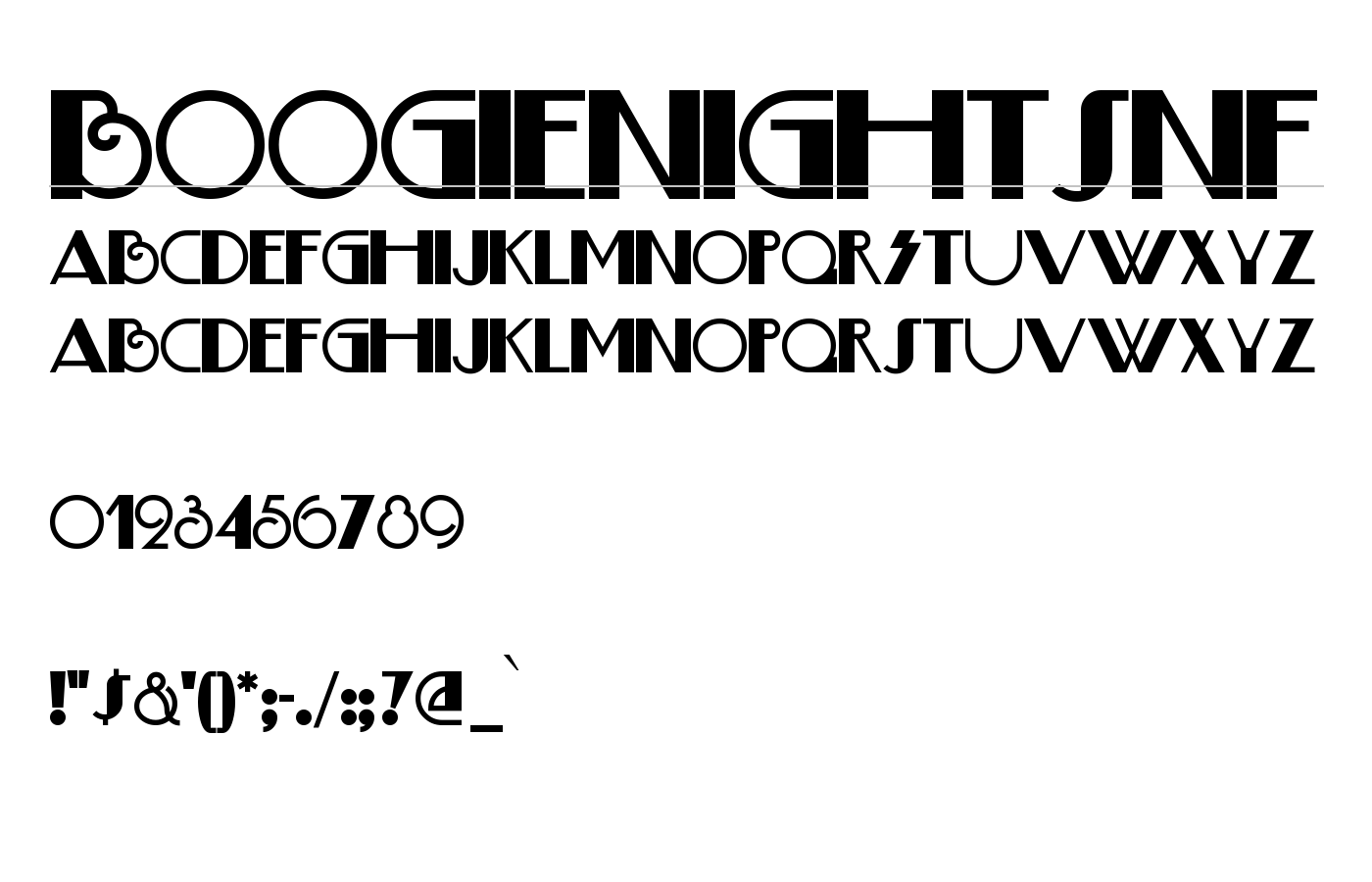
BoogieNightsNF is a bold, geometric sans serif font with a retro Art Deco vibe, characterized by its high contrast between thick and thin strokes and distinctive decorative elements like the curled terminals and lightning-bolt-style "S". Its condensed width, tall x-height, and unique letterforms bring an energetic, playful feel that suits vintage-inspired branding, posters, and headlines seeking a stylish, dynamic look. This font works especially well where a bold statement with a touch of nostalgic flair is needed, such as in fashion or entertainment design.
BoogieNightsNF Font
About BoogieNightsNF Font
| Font family | BoogieNightsNF Font |
| Designer | Nick Curtis |